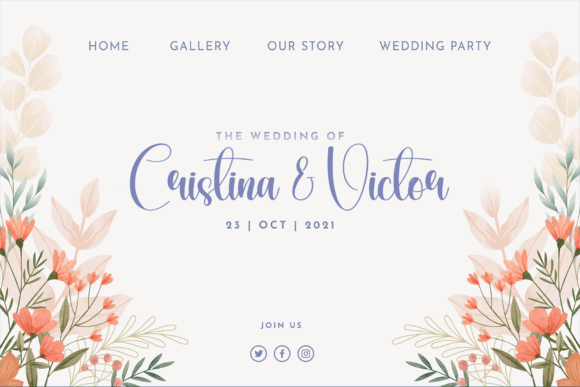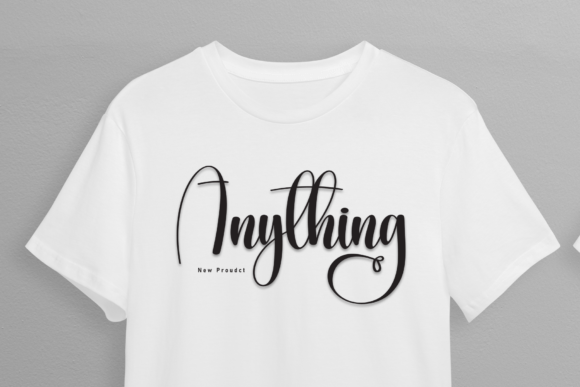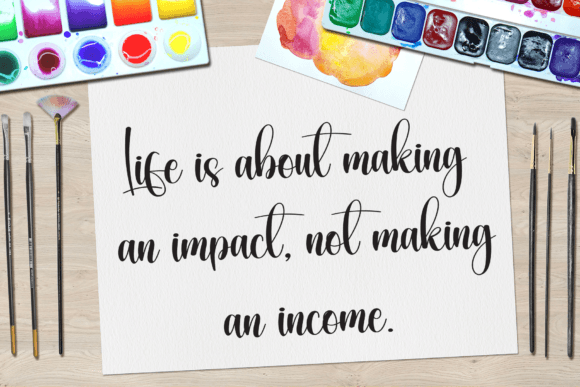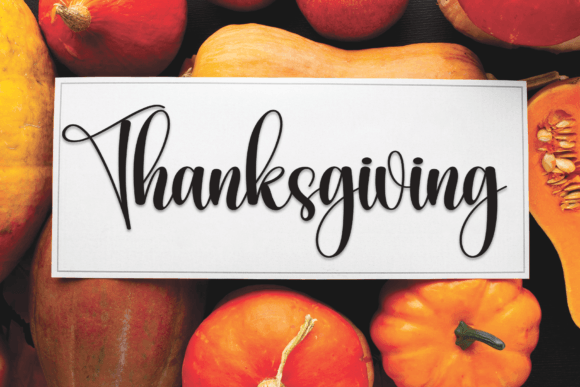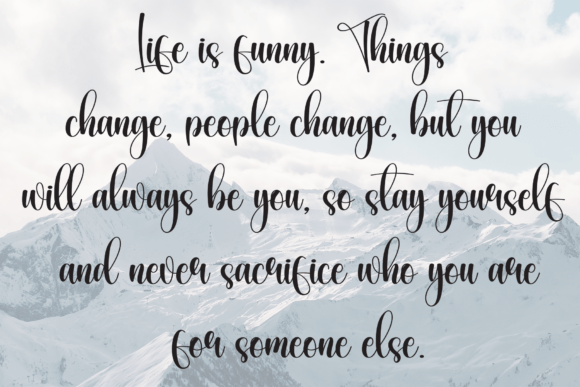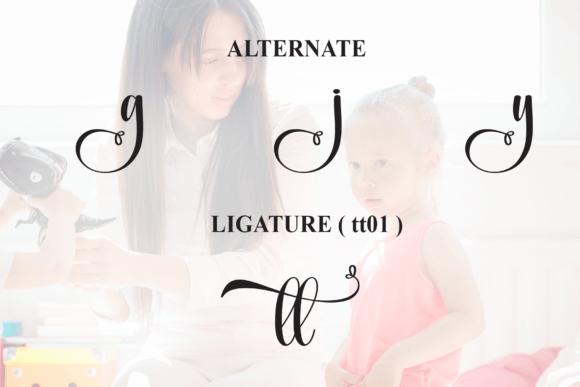
The Art of Handwritten Touch: Unlocking the Potential of Babysitter Font
Do you remember the joy of receiving a handwritten note from a loved one? The feeling of warmth and personal touch that comes with it? For designers, capturing that essence in their work can be a challenge, but what if you had the perfect tool to make it happen? Enter Babysitter Font, a stylish and elegant script font that adds a touch of sophistication to any design.
Whether you’re creating wedding invitations, thank you cards, or business cards, Babysitter Font is the perfect addition to elevate your design game. Its versatility and timeless beauty make it a valuable asset for any designer looking to add a handwritten touch to their work. With Babysitter Font, you can create designs that feel personal, yet professional, and leave a lasting impression on your audience.
Babysitter Font Key Features
- Unique Characteristics: The font features a playful, cursive design with rounded edges and a whimsical feel, perfect for creating a child-friendly atmosphere.
Babysitter Font Review
Overall, I’m a bit mixed on the Babysitter Font. There are some great features, but also some notable limitations.
- Handwritten feel: The font has a unique, handwritten feel that’s perfect for adding a touch of personality to your designs.
- Expressive characters: The font’s characters are very expressive, which makes it great for conveying emotions and energy.
- Good for titles and headings: The font is well-suited for titles and headings, especially when you want to add a sense of playfulness.
- Limited font sizes: The font can become difficult to read at smaller font sizes, which limits its versatility.
- Lack of consistency: Some characters feel inconsistent in their design, which can make the font feel a bit unpolished.
- Not ideal for body text: While the font is great for titles and headings, it’s not the best choice for body text due to its informal feel.
Overall, I’d say the Babysitter Font is a great choice for designers who want to add a bit of personality to their work. However, it may not be the best choice for projects that require a more formal or professional tone.
Babysitter Font Practical Application Guide
Tips for Getting the Most Out of the Babysitter Font
Use the Babysitter Font for playful, creative projects, such as invitations, posters, and social media graphics.
Pair the Babysitter Font with other playful fonts or graphics to create a cohesive design.
The Babysitter Font is perfect for:
- Baby shower invitations and decorations
- Children’s birthday party invitations and decorations
- Social media graphics and promotions for family-friendly businesses
Alternatives to Babysitter Font
Great Vibes is a beautiful, handwritten font perfect for creating a playful and casual atmosphere. It’s ideal for use in social media graphics, posters, and advertising materials where a friendly tone is desired. Compared to Babysitter Font, Great Vibes has a more relaxed feel and is better suited for informal designs.
Alex Brush is a elegant, handwritten font that conveys a sense of sophistication and refinement. It’s perfect for use in high-end branding, wedding invitations, and luxury packaging where a touch of elegance is desired. Compared to Babysitter Font, Alex Brush is more formal and has a more polished feel.
Pacifico is a modern, serif font with a relaxed, beachy vibe. It’s ideal for use in travel brochures, restaurant menus, and other designs where a laid-back atmosphere is desired. Compared to Babysitter Font, Pacifico has a more polished and sophisticated feel, making it suitable for a wider range of designs.